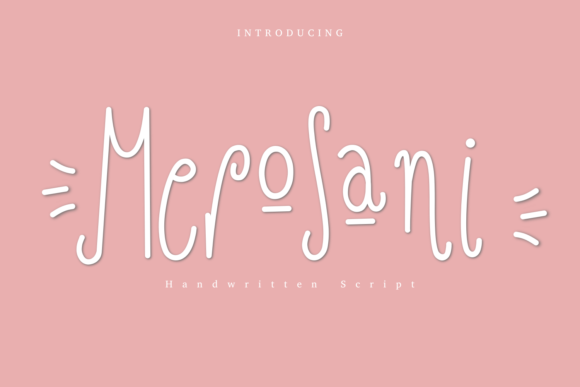
Merosani Font
**Introducing Merosani: The Enchanting Script Font That Will Ignite Your Creativity**
Welcome to the magical world of Merosani, a captivating script font that will transport you to a realm of endless creative possibilities. Crafted with the utmost precision and flair, Merosani is a testament to the power of handwritten art, embodying elegance, charm, and a touch of whimsy.
As you delve into the enchanting realm of Merosani, you'll discover a treasure trove of unique glyphs and swashes, meticulously encoded for your effortless access. This extraordinary font is your key to unlocking a world of captivating designs, brimming with personality and charm.
Whether you're a seasoned graphic designer or simply an enthusiast with a passion for creating, Merosani is the perfect companion for your creative endeavors. Its delicate strokes and graceful curves will captivate your audience, leaving an unforgettable impression that will linger long after they've encountered your creations.
Imagine the joy of crafting eye-catching logos that exude sophistication and charm. Picture the delight of designing invitations that evoke a sense of whimsy and wonder. With Merosani as your trusty ally, every project you undertake will be infused with a touch of magic, leaving your audience spellbound.
So, dear creative soul, embrace the enchanting embrace of Merosani and embark on a journey of boundless creativity. Let your imagination soar as you create designs that enchant, captivate, and leave an indelible mark on the hearts of all who behold them.